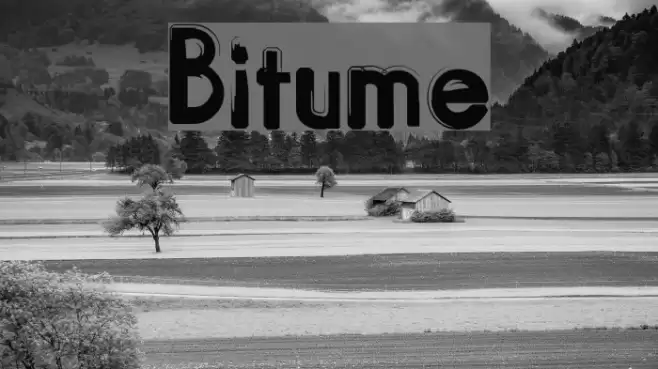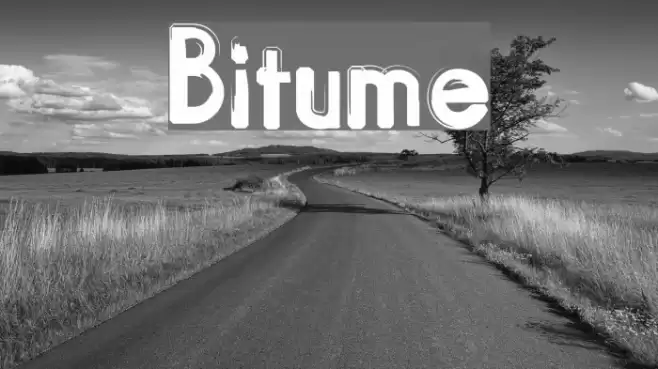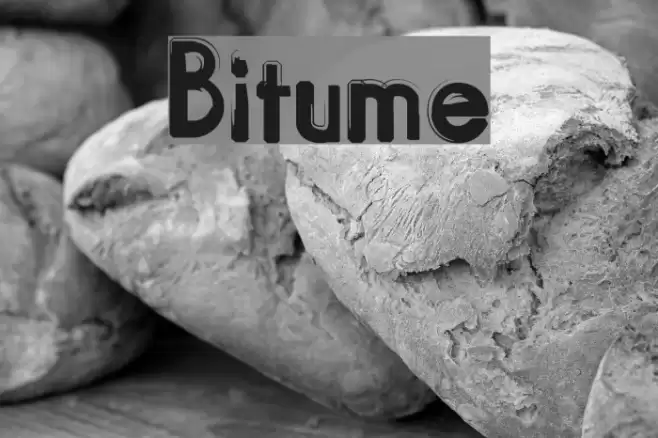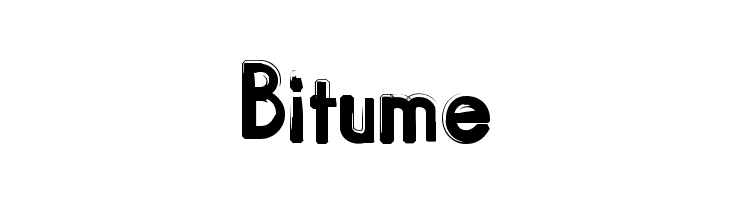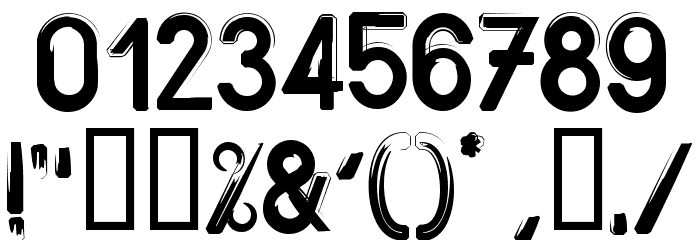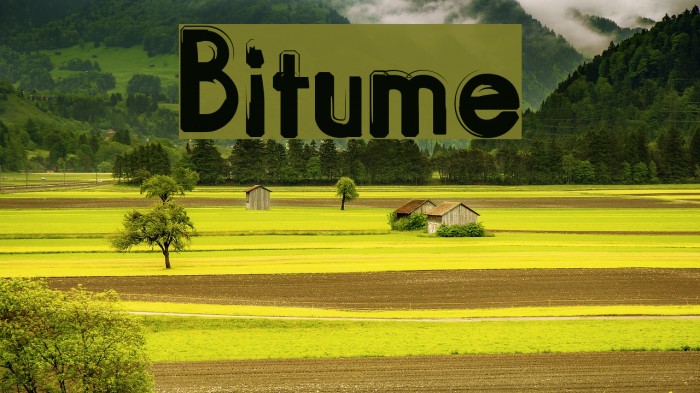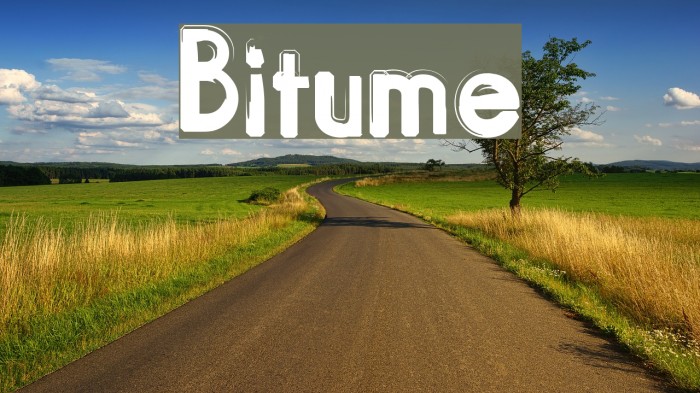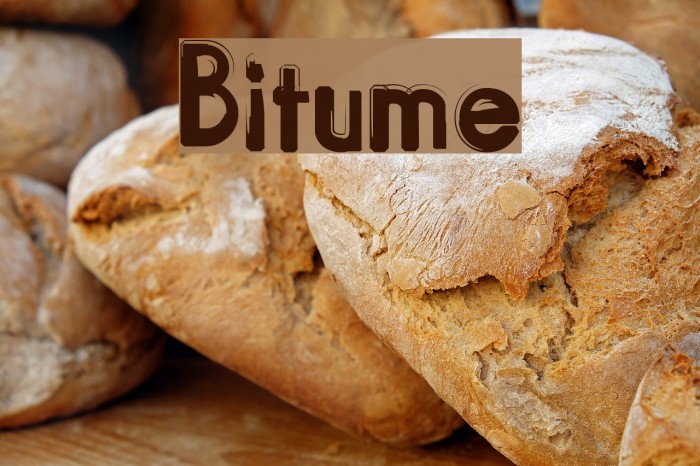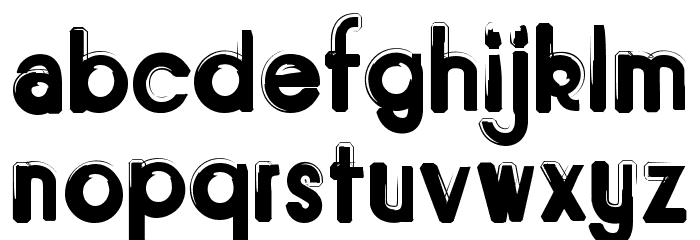
Bitume Font
Bitume Description
This font features a bold and impactful design with a unique, shadowed effect that gives it a three-dimensional appearance. The uppercase and lowercase letters maintain a consistent width, creating a uniform look across the alphabet. The numerals are equally bold, ensuring they stand out in any context. Special characters are included, each designed to match the bold and shadowed style of the letters and numbers. The overall aesthetic is modern and eye-catching, making it suitable for projects that require a strong visual presence.
A bold, shadowed font with a modern, three-dimensional look from Distorted Eroded fonts.
- Proposed Projects: Ideal for posters, headlines, logos, and branding materials that require a strong, impactful visual style.